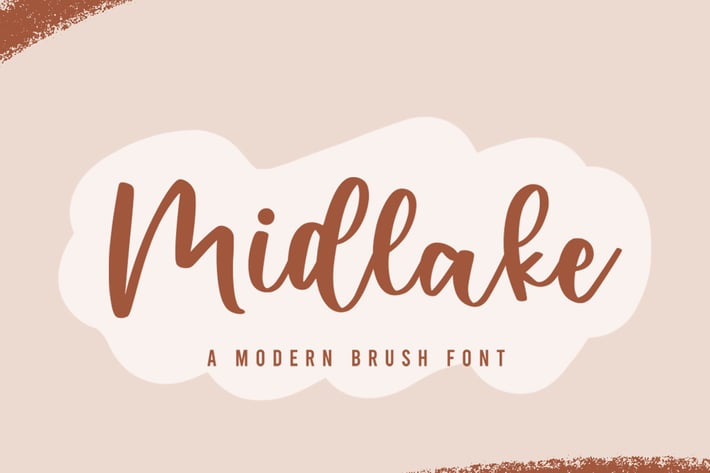
Midlake - Brush Script Font
Midlake is a bouncy handwritten script font!
This font is perfect for quotes, shirt designs, websites, branding, children's designs, blogs, logos, invitations and more!
Fonts include multilingual support for; ä ö ü Ä Ö Ü ß ¿ ¡